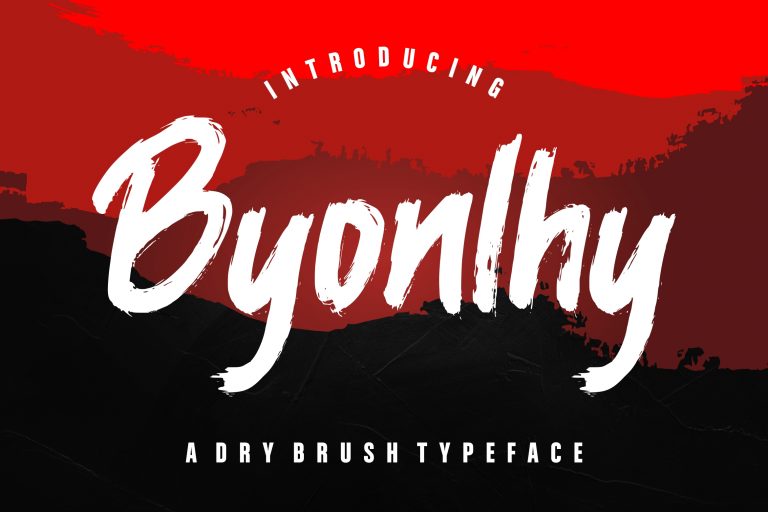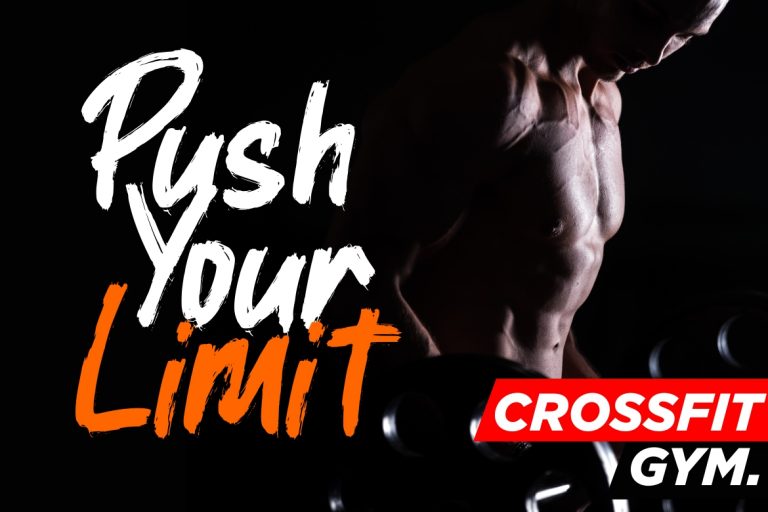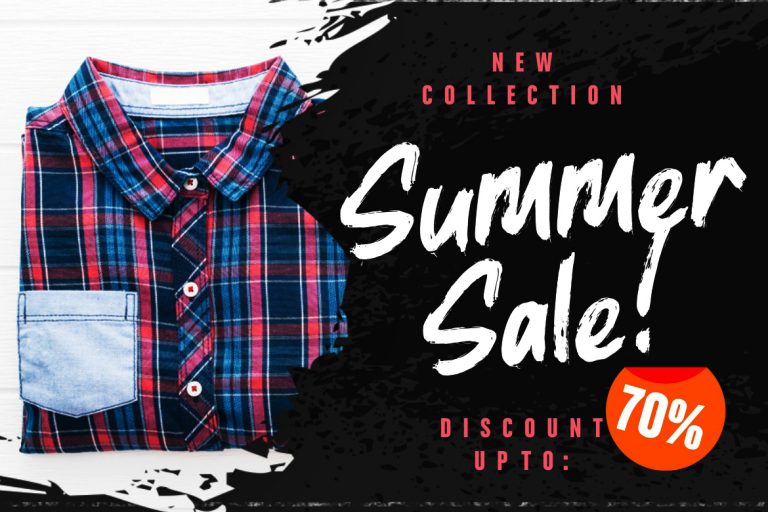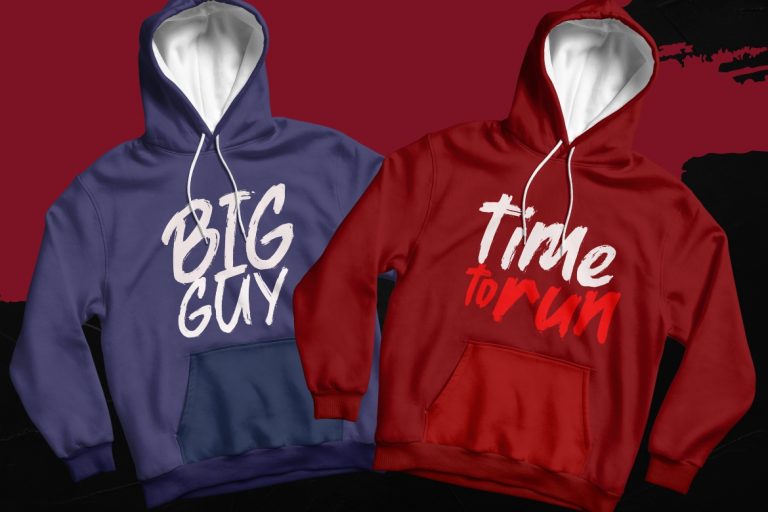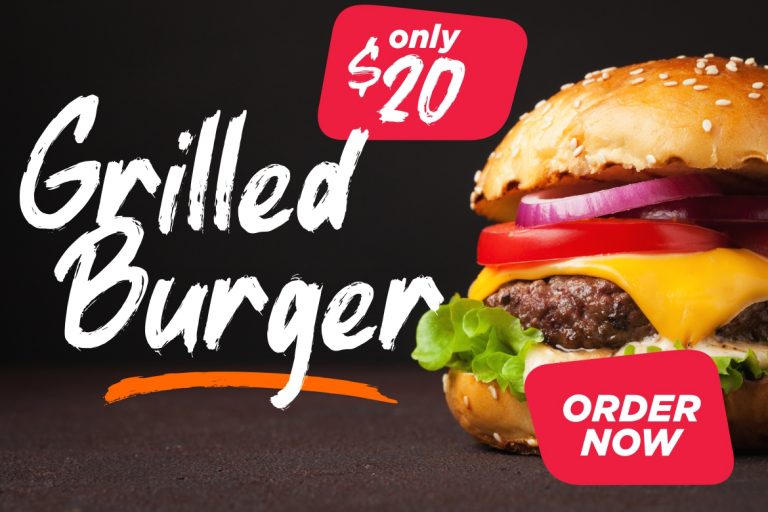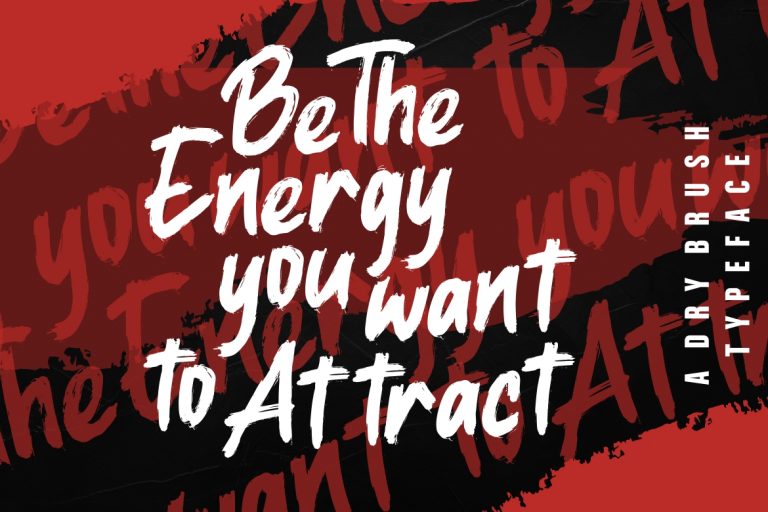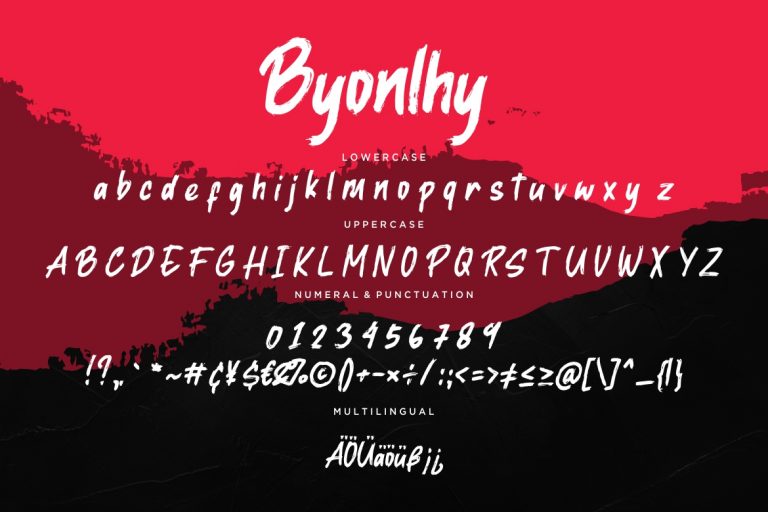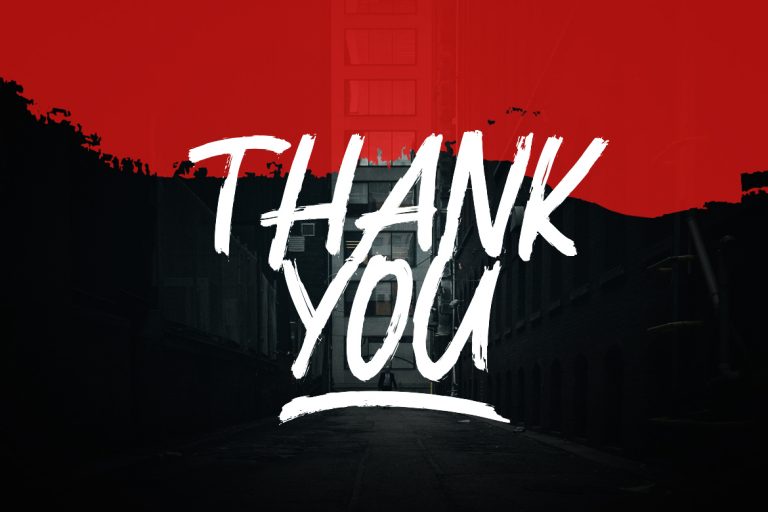
Byonlhy is dry brush font looks bold and will make your latest project looks amazing.
• Fonts include multilingual support for; ä ö ü Ä Ö Ü ß ¿ ¡
Byonlhy Dry Brush Typeface